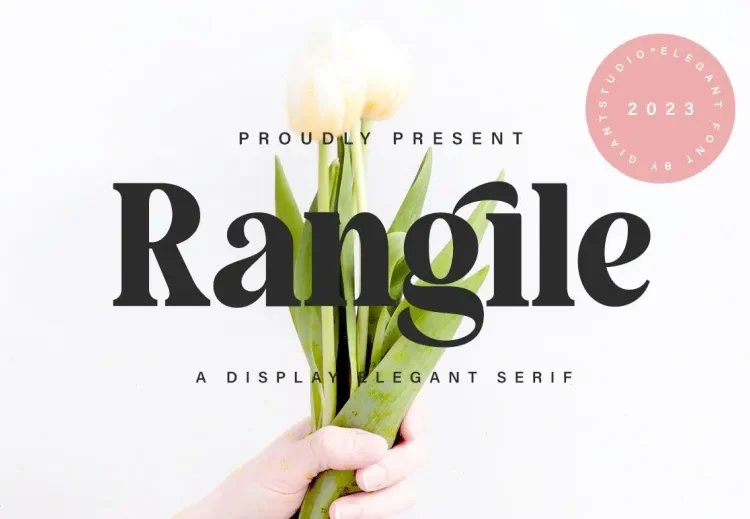
Rangile Font
Welcome to Rangile! We are excited to unveil our new elegant serif font, designed to bring a blend of natural charm and contemporary sophistication to your projects. Rangile combines stylish elegance with a chic, modern touch, making it perfect for a wide range of applications.
Key Features of Rangile:
• Elegant and Chic: A perfect balance of natural elements and modern style.
• Versatile Use: Ideal for logos, invitations, branding, advertising, photography watermarks, social media posts, product packaging, labels, wedding stationery, and more.